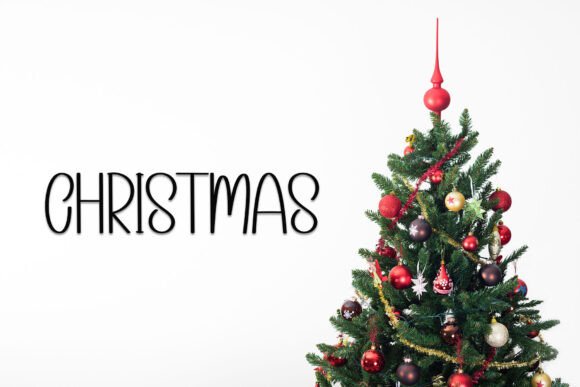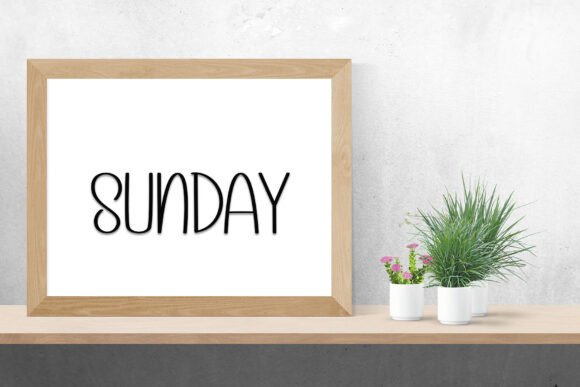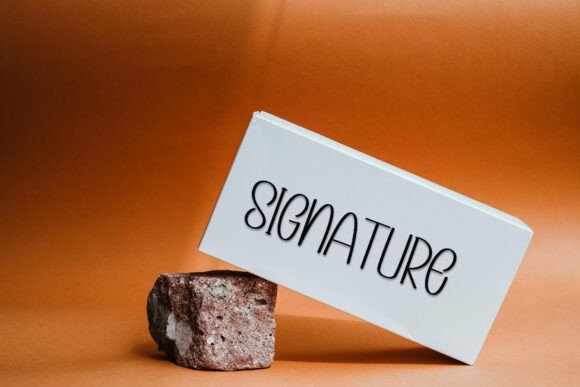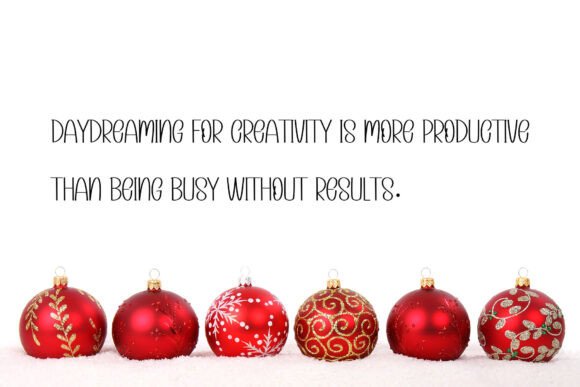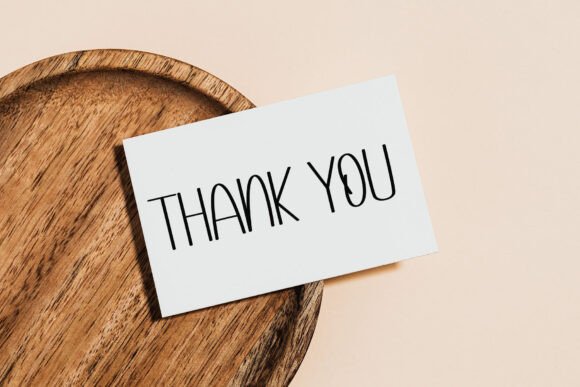
Introducing Handwork Font: Elevate Your Designs with Elegance and Class
In the world of typography, a well-crafted font can make all the difference in transforming a design from ordinary to extraordinary. For designers and crafters seeking to infuse their projects with a touch of sophistication and timeless charm, the Handwork Font is an exceptional choice. This trendy handwritten font boasts a contemporary atmosphere and impeccable form, drawing inspiration from classic calligraphy to bring an air of elegance to any design.
The Essence of Handwork Font
Handwork Font is more than just a collection of letters; it’s a statement of style and refinement. Its roots in traditional calligraphy are evident, yet it carries a modern twist that sets it apart from more conventional fonts. This unique blend of old and new makes Handwork Font versatile and adaptable, suitable for a wide range of design applications, from luxury branding and high-end product packaging to elegant wedding invitations and sophisticated digital content.
Key Features of Handwork Font
- Contemporary yet Classic: Handwork Font strikes the perfect balance between modern trends and timeless elegance, making it a versatile tool for designers.
- Impeccable Form: With its clean lines and precise craftsmanship, this font exudes quality and attention to detail.
- Elegance and Class: It adds a sophisticated touch to any project, ensuring that the final product stands out with grace and poise.
- Trendy and Versatile: Whether you’re working on a digital platform or a print project, Handwork Font adapts seamlessly, ensuring consistency and high impact.
Applications of Handwork Font
The versatility of Handwork Font makes it an invaluable asset for a variety of design projects. Here are some of the areas where this font truly shines:
- Branding and Logo Design: For businesses aiming to convey luxury, sophistication, and a high-end quality, Handwork Font can be a crucial element in establishing a strong brand identity.
- Wedding and Event Planning: Create stunning wedding invitations, menus, and event signage that reflect the elegance and joy of the occasion.
- Packaging Design: Elevate product packaging with a font that communicates luxury and premium quality, helping your product to stand out on crowded shelves.
- Digital Content: From blog headers to social media graphics, Handwork Font can add a touch of class to your digital content, engaging your audience with its aesthetic appeal.
Tips for Using Handwork Font Effectively
To maximize the impact of Handwork Font in your designs, consider the following tips:
- Pair with Complementary Fonts: For maximum effect, pair Handwork Font with simpler, sans-serif fonts to create contrast and visual interest.
- Adjust Size and Weight: Experiment with different sizes and weights to create hierarchy and emphasis within your design.
- Consider Color: Choose colors that complement the elegance of the font, such as neutral tones or rich, deep hues.
Handwork Font is a powerful tool for designers and crafters looking to imbue their projects with elegance, class, and a contemporary edge. Its inspiration from timeless classic calligraphy, combined with its modern appeal, makes it a versatile and stylish choice for a wide range of applications. By incorporating Handwork Font into your design repertoire, you’re equipped to create visually stunning and impactful projects that resonate with sophistication and poise.
Whether you’re crafting a luxury brand identity, designing elegant wedding invitations, or simply looking to elevate your digital content, Handwork Font is poised to become your go-to choice for adding that special touch of elegance and class.